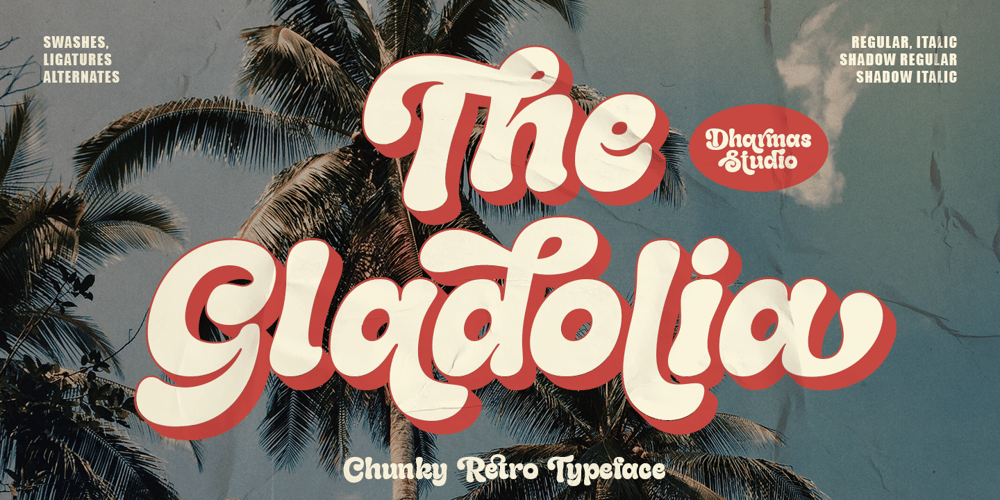
Gladolia
Gladolia font
Gladolia Font Family was designed by Ahmad Jamaludin and published by Ahmad Jamaludin. Gladolia contains 4 styles and family package options. Get ready to rock your designs with the brand new Chunky Groovy Font, GLADOLIA! 🎉Gladolia is a chunky typeface with a unique retro style that is sure to make your designs stand out. With 2 different style fonts, regular and oblique, plus an extra Extruded Font version for each style, you can easily create eye-catching designs without any extra effort.This font is perfect for a retro 80s theme and can be used for cover magazines, brochures, logos, headlines or quotes, stand-alone displays, and short paragraphs or content. Each font in the family is dynamic and authoritative on its own, making it perfect for any display project.So what are you waiting for? Elevate your designs with the cool and groovy vibes of Gladolia! 🤘Similar Item: Sugar Peachy : LINK HERE Gyoza : LINK HERE Gunydrops : LINK HERE Swipe: LINK HERE Replay : LINK HERE Bright : LINK HERE Margin : LINK HERE Nighty : LINK HERE What you get? Gladolia Regular Gladolia Italic Gladolia Shadow Regular Gladolia Shadow Italic Features : Alternates and Ligatures Instructions ( Access special characters, even in circuit design ) Letters, numbers, symbols, and punctuation No special software is required to use this typeface even work in Canva Multilingual Support Give your design projects that fun, playful edge with GLADOLIA!Thank you,Dharmas Studio